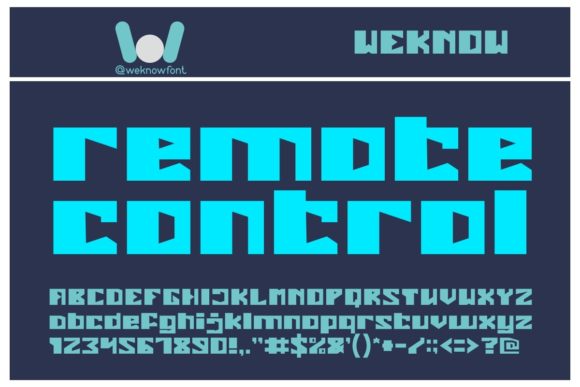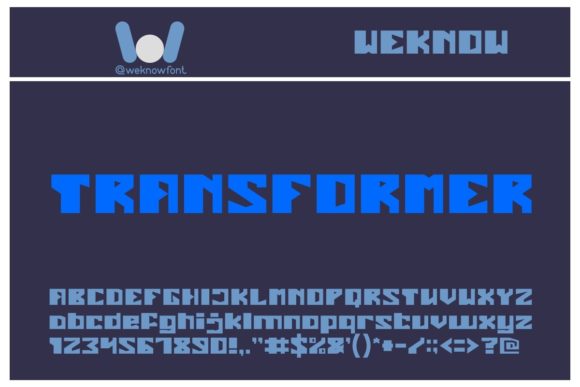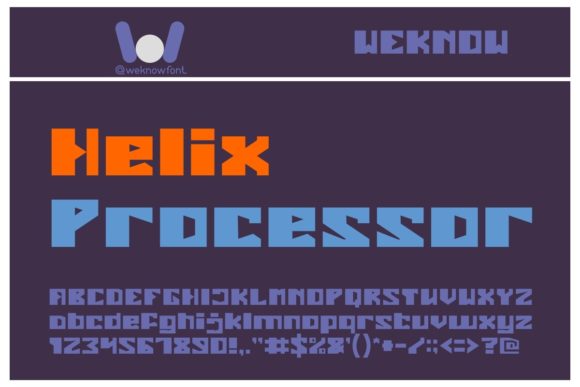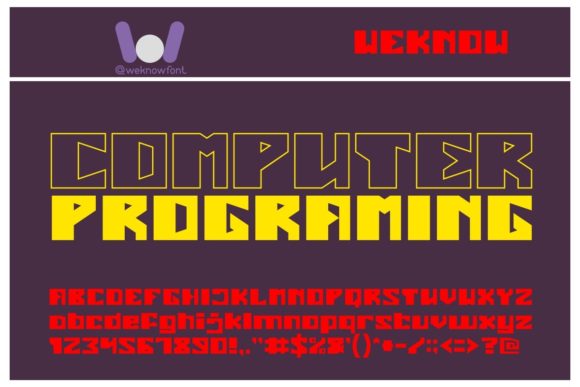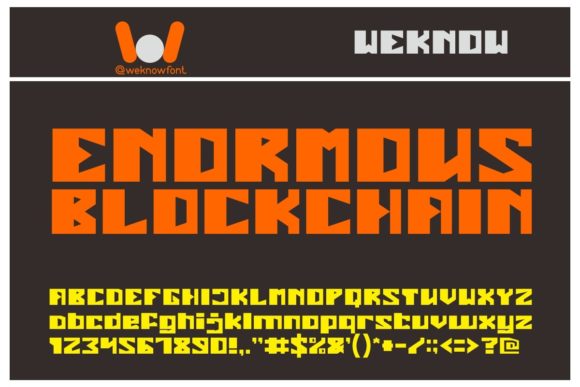
Unlock the Power of Enormous Font: Elevate Your Designs with Bold and Thick Lettering
Are you tired of using the same old fonts in your designs? Do you want to make a statement and grab the attention of your audience? Look no further than Enormous Font, a bold and thick lettered display font that’s sure to take your creations to the next level. In this article, we’ll explore the features and benefits of Enormous Font, and show you how it can become an incredible asset to your font library.
The Power of Bold Typography
Typography is a crucial element in any design, and the right font can make all the difference. Enormous Font is a game-changer, with its bold and thick lettering that’s sure to turn heads. Whether you’re designing a logo, a poster, or a website, this font will add a level of professionalism and sophistication that’s hard to ignore. With Enormous Font, you can create stunning headlines, attention-grabbing titles, and eye-catching text that’s sure to engage your audience.
What Makes Enormous Font So Special?
So, what sets Enormous Font apart from other fonts on the market? Here are just a few of its key features:
- Bold and Thick Lettering: Enormous Font features bold and thick lettering that’s perfect for creating eye-catching text.
- Versatility: This font is versatile and can be used for a wide range of design projects, from logos and posters to websites and social media graphics.
- Easy to Read: Despite its bold and thick lettering, Enormous Font is easy to read, making it perfect for use in a variety of contexts.
- High-Quality Design: Enormous Font is designed to the highest standards, ensuring that it looks great in any design.
How to Use Enormous Font in Your Designs
Using Enormous Font in your designs is easy. Here are a few tips to get you started:
- Use it as a Headline Font: Enormous Font is perfect for use as a headline font, adding a level of drama and impact to your designs.
- Pair it with Other Fonts: Experiment with pairing Enormous Font with other fonts to create a unique and eye-catching look.
- Use it in Combination with Images: Enormous Font looks great when used in combination with images, adding a level of context and meaning to your designs.
Benefits of Using Enormous Font
So, why should you choose Enormous Font for your designs? Here are just a few of the benefits:
- Increased Engagement: Enormous Font is designed to grab attention and engage your audience.
- Improved Professionalism: This font adds a level of professionalism and sophistication to your designs.
- Flexibility: Enormous Font can be used for a wide range of design projects, making it a versatile addition to your font library.
In conclusion, Enormous Font is a bold and thick lettered display font that’s sure to elevate your designs. With its versatility, ease of use, and high-quality design, it’s an incredible asset to your font library. Whether you’re a designer, craft, or simply someone who wants to create stunning graphics, Enormous Font is a must-have. So why wait? Download Enormous Font today and start creating stunning designs that grab attention and engage your audience.
Whether you’re looking to create a bold and eye-catching logo, a stunning poster, or a professional website, Enormous Font has the potential to take your designs to the next level. With its bold and thick lettering, versatility, and ease of use, it’s the perfect addition to any design project. So why not give it a try and see the difference it can make?